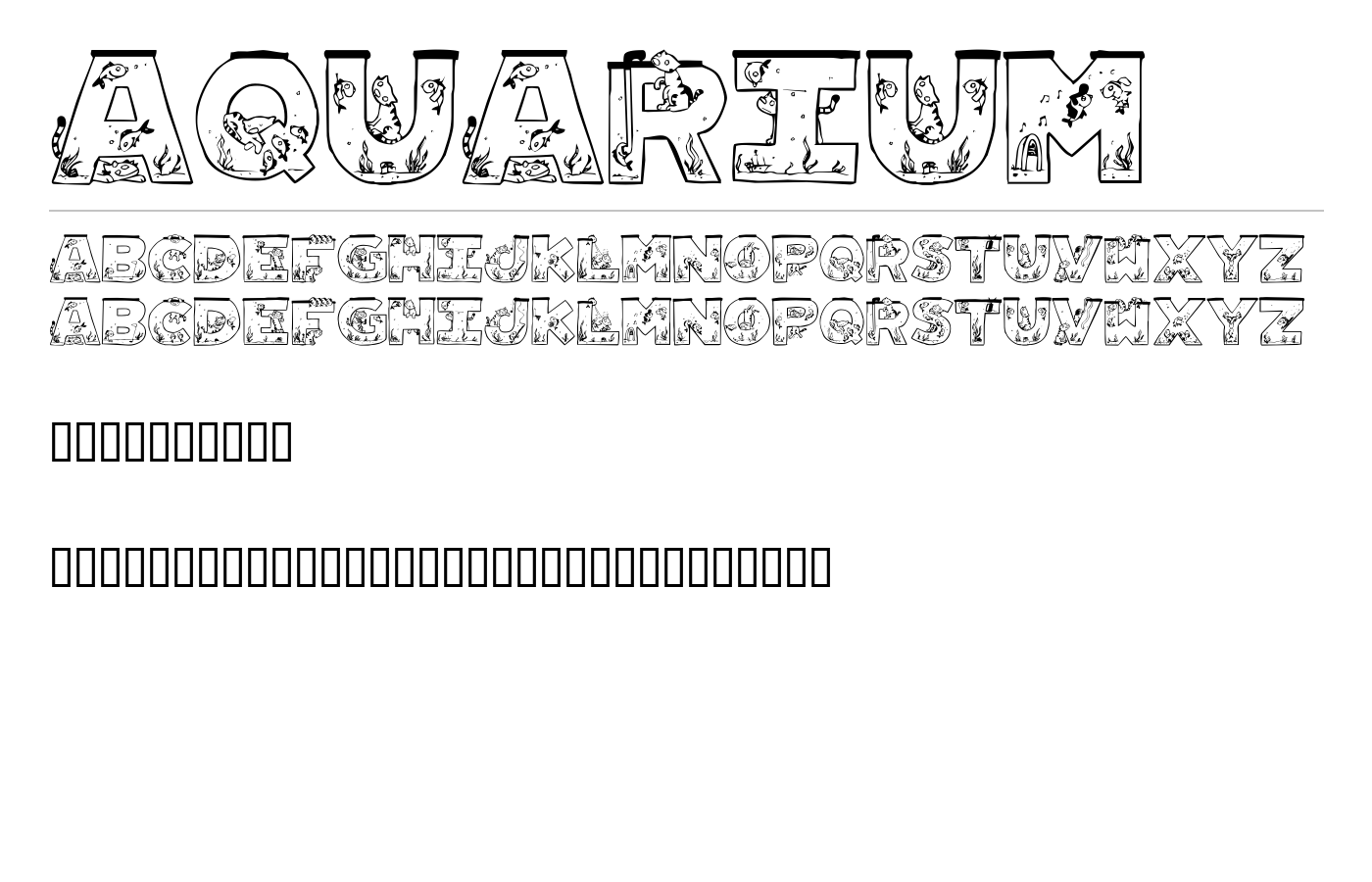
Aquarium is a playful, decorative sans serif font featuring bold, blocky uppercase letters filled with charming underwater-themed illustrations like fish, plants, and marine details. Its friendly and whimsical style makes it perfect for creative projects aimed at children, aquatic or nature-focused branding, and fun headlines that need a lively, eye-catching touch. This font brings a joyful, imaginative vibe ideal for posters, logos, and casual invitations.
Aquarium Font
About Aquarium Font